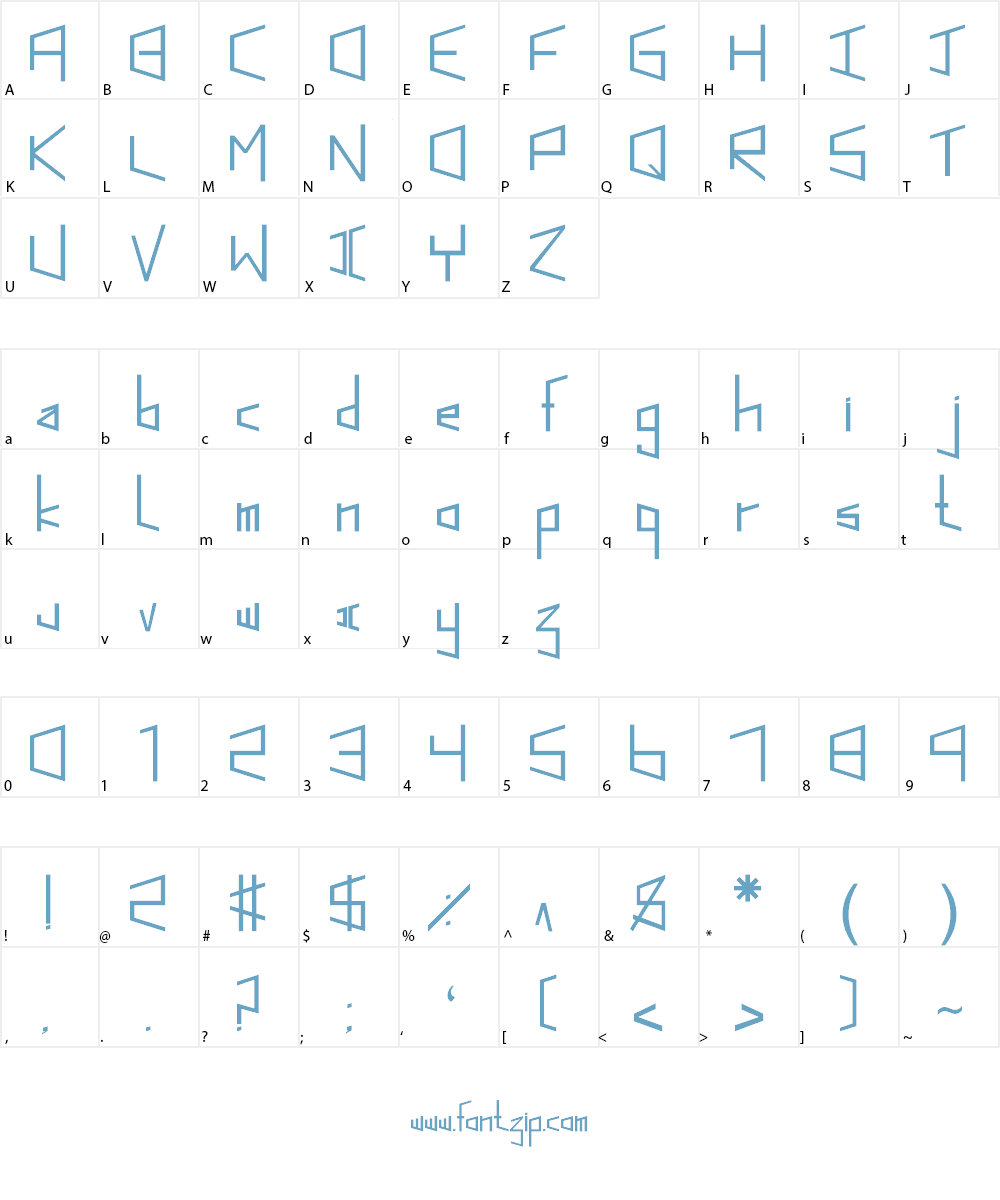
Inspired by the logo of Microsoft Windows or one point perspective.
Design according to the measurements of Golden ratio.
Characteristics
Bold & straight
Sans Sarif